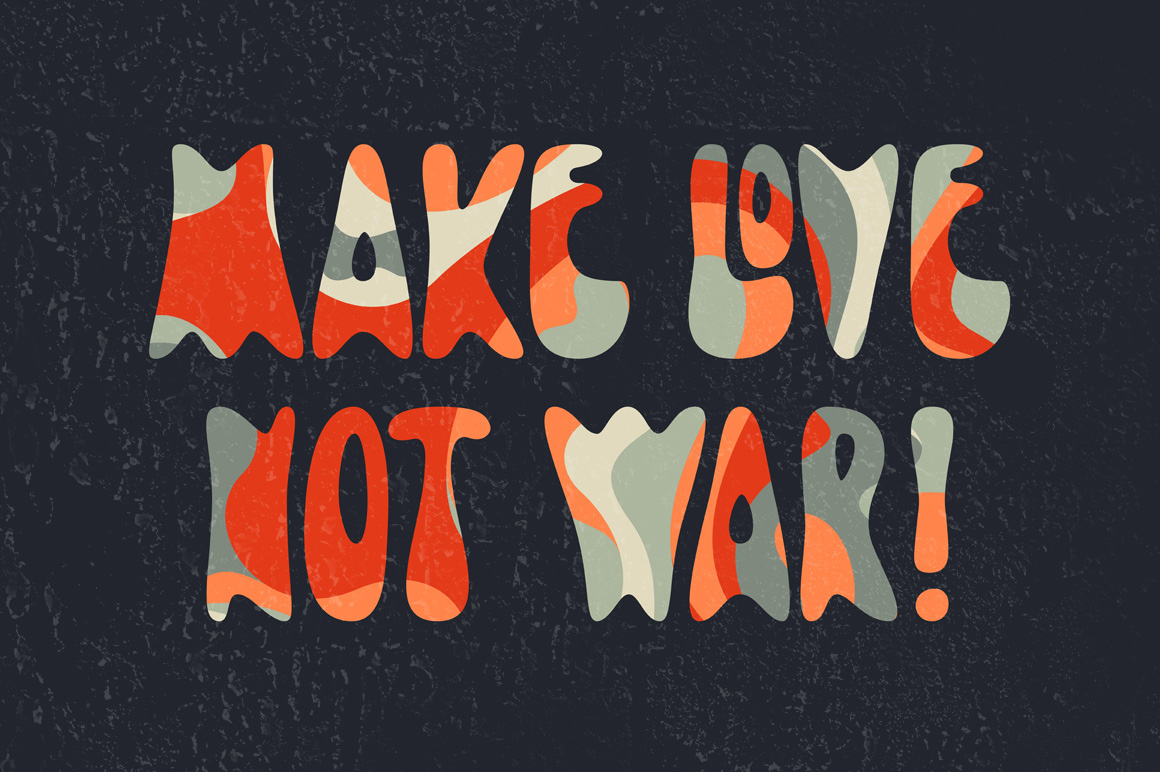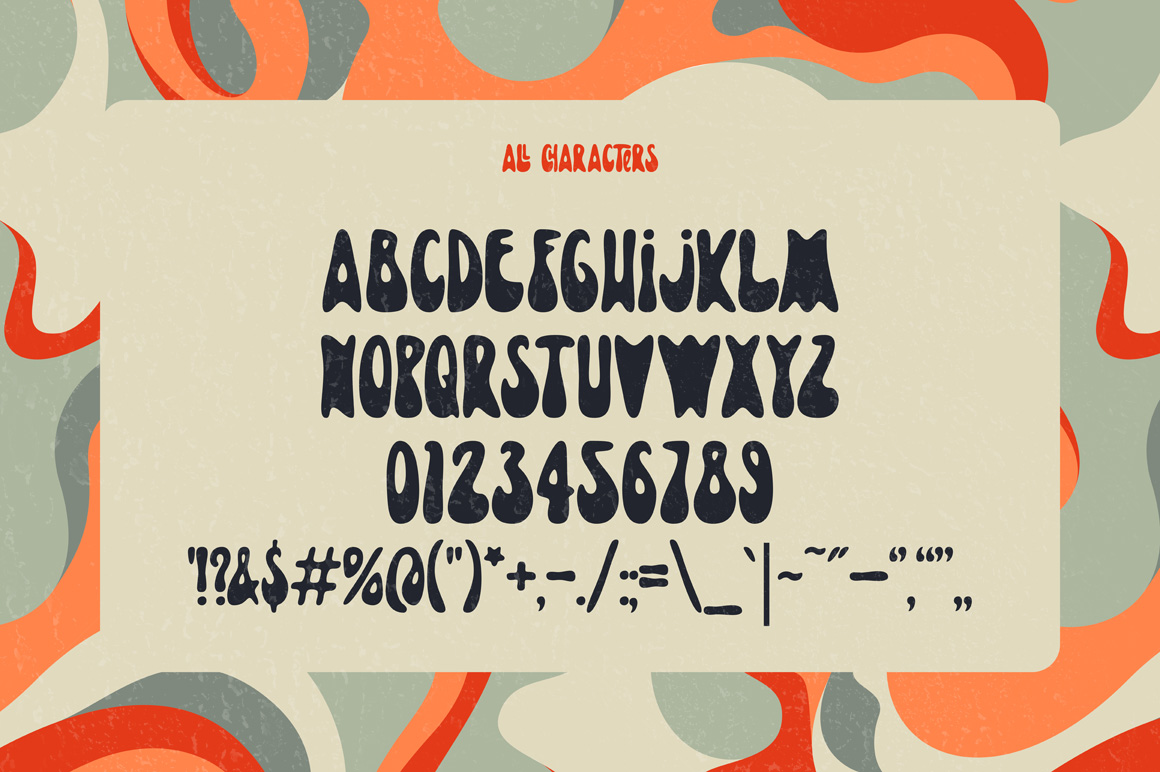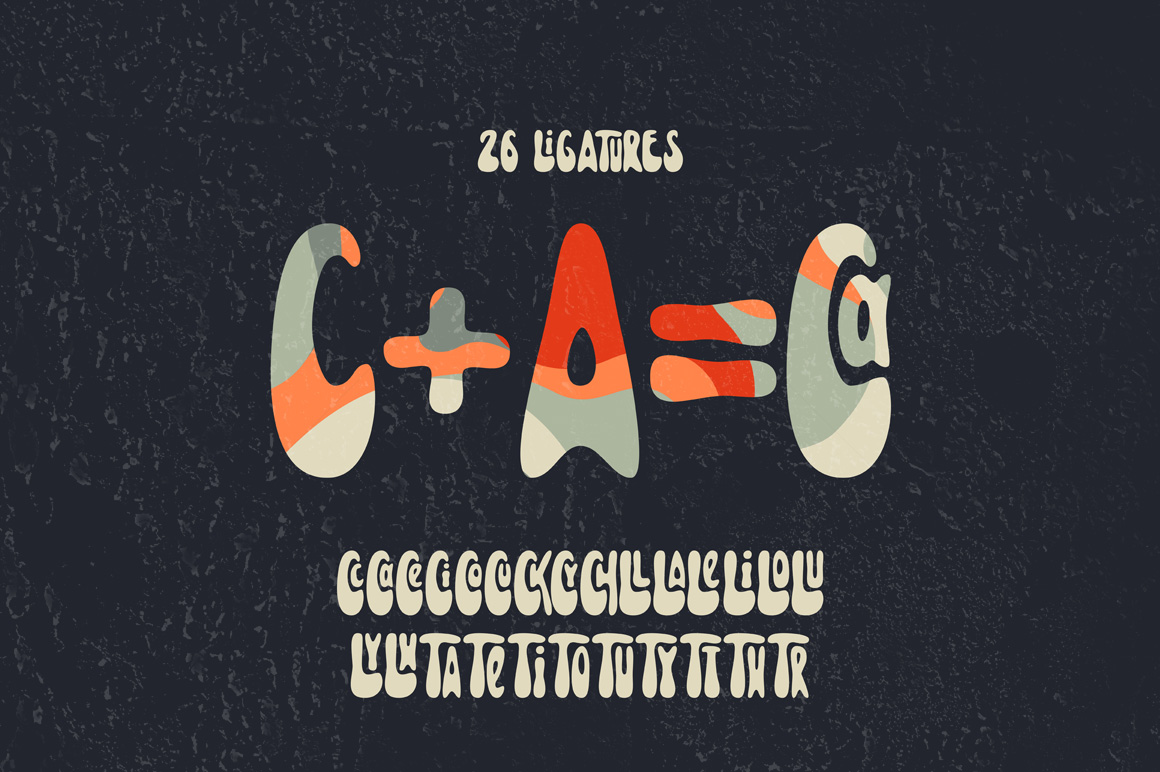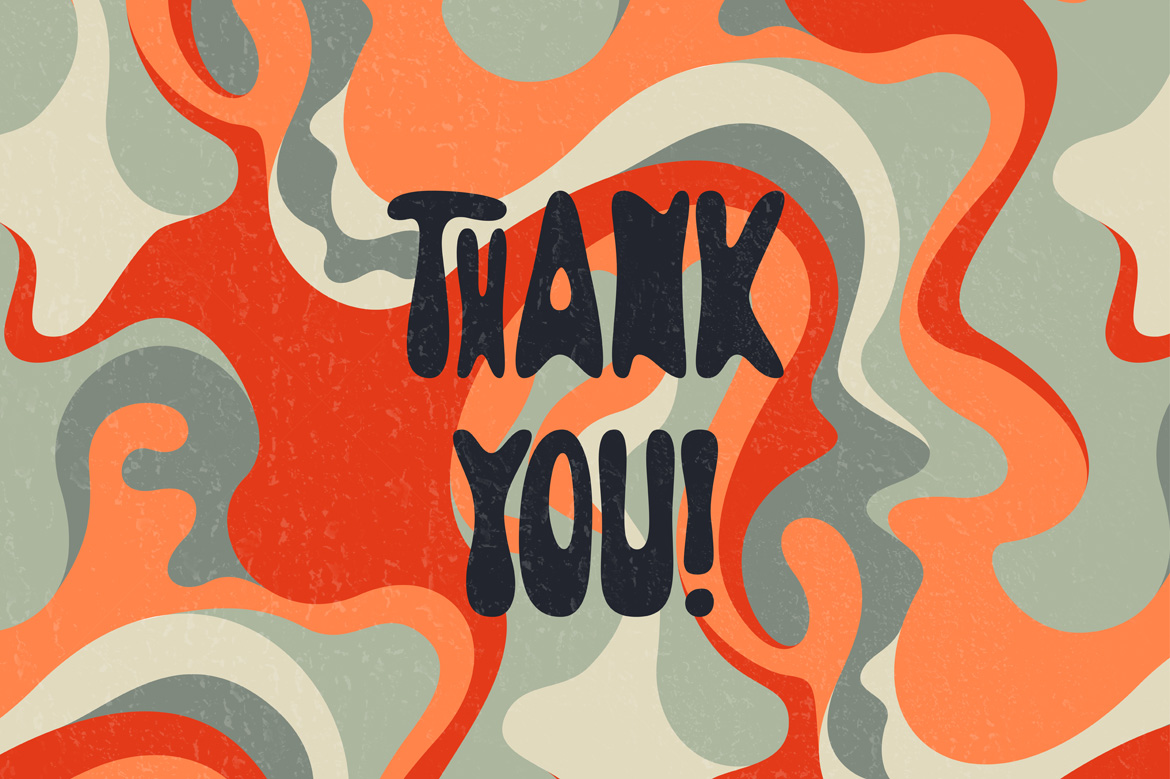
Introduction to Lovebus Font
Have you ever been working on a creative project, pouring your heart and soul into a design, only to feel like something’s missing? That’s where the Lovebus Font comes in – a vintage-inspired font that’s guaranteed to give your designs an authentic, retro vibe.
With its 26 automatically replaceable ligatures, the Lovebus Font is a game-changer for designers looking to add a unique touch to their work. Whether you’re working on a high-quality design resource or a free download, this font is sure to elevate your project and make it stand out from the crowd.
As a valuable design resource, the Lovebus Font offers a level of flexibility and creativity that’s hard to find in other fonts. And with its transparent background, it’s the perfect addition to any project – from posters and flyers to social media graphics and more.
Key Features of Lovebus Font
- High-quality vector design, suitable for various creative projects.
- Perfect for use in graphic design, digital art, and other design-related projects.
- Supports a wide range of languages, making it a versatile design resource.
- Customizable, with various font styles and sizes available for creative expression.
Honest Review: Lovebus Font
As a designer, I’m always on the lookout for high-quality design resources to elevate my creative projects. The Lovebus Font caught my attention with its unique aesthetic and transparent background, making it a great addition to any design library.
- ✨ Unique and playful letterforms that add a touch of whimsy to any design
- ✨ Transparent background, making it easy to layer and composite with other design elements
- ⚠️ Limited character set, which may not be suitable for extended text blocks
- ⚠️ Not ideal for small text sizes, as the letterforms may become difficult to read
Overall, I’m impressed with the Lovebus Font’s potential as a design resource. While it may not be suitable for every project, its unique aesthetic and transparent background make it a great choice for creative projects that require a touch of personality.
The Lovebus Font is perfect for:
Designing posters and flyers for creative projects.
Creating social media graphics and advertisements.
Adding a touch of elegance to business presentations and documents.